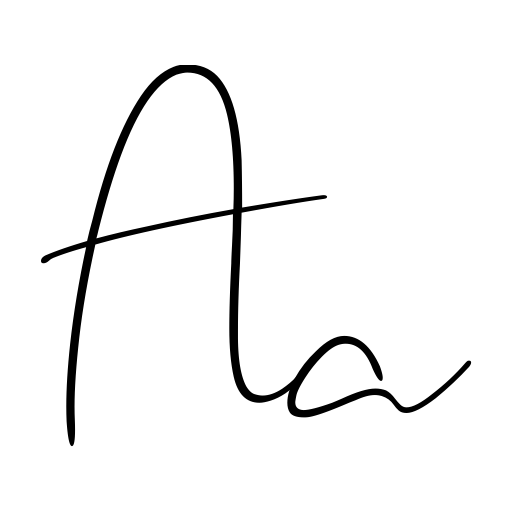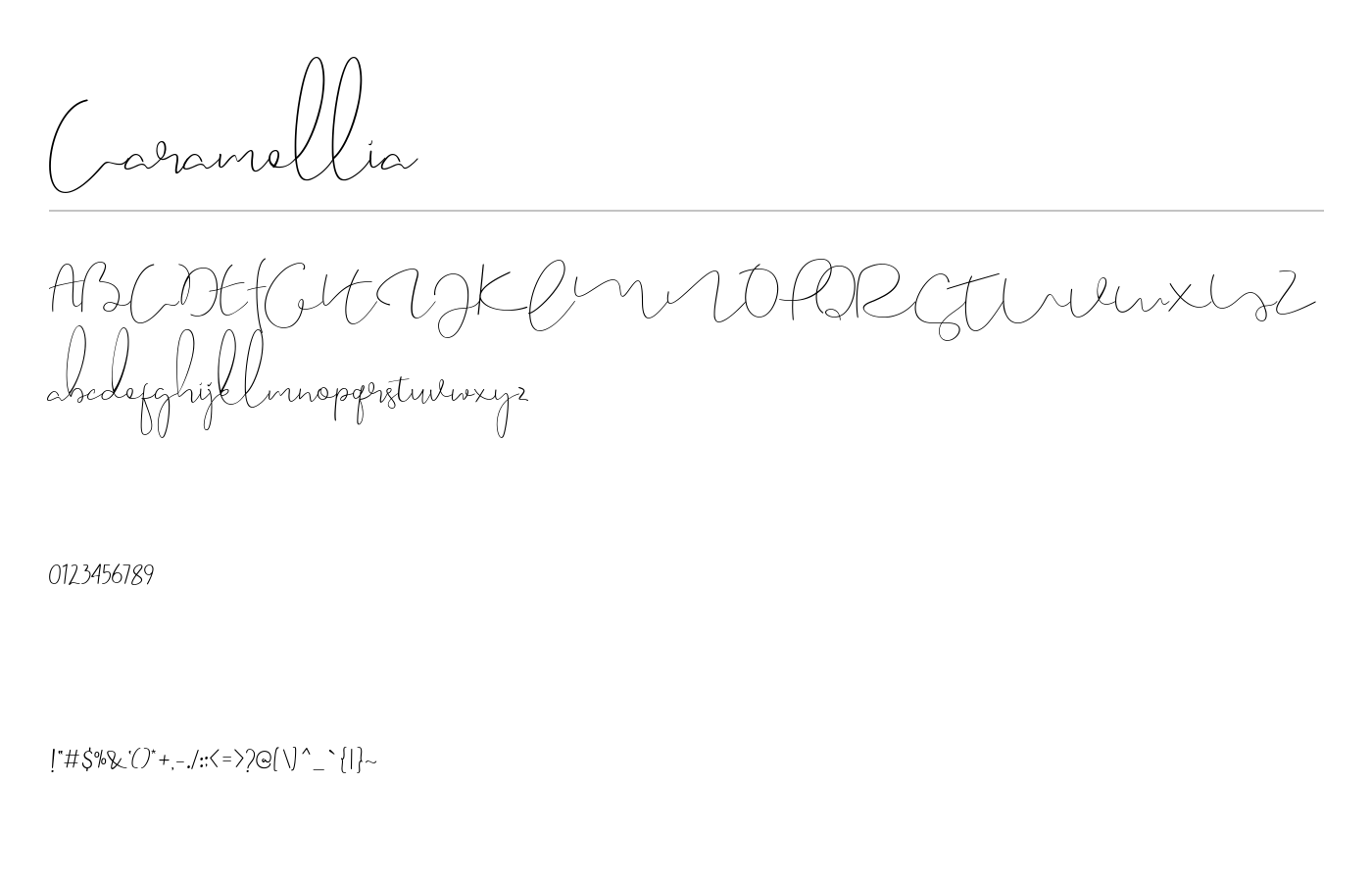
Caramellia is a delicate, handwritten script font characterized by its thin, flowing strokes and tall, airy letterforms. Its elegant and whimsical style makes it perfect for feminine branding, invitations, and light, artistic designs where a personal, graceful touch is desired. This font works best in large sizes for headlines or logos, adding a charming and sophisticated feel without overwhelming the design.
Caramellia Font
About Caramellia Font
| Font family | Caramellia Font |
| Designer | Zain Fahroni |